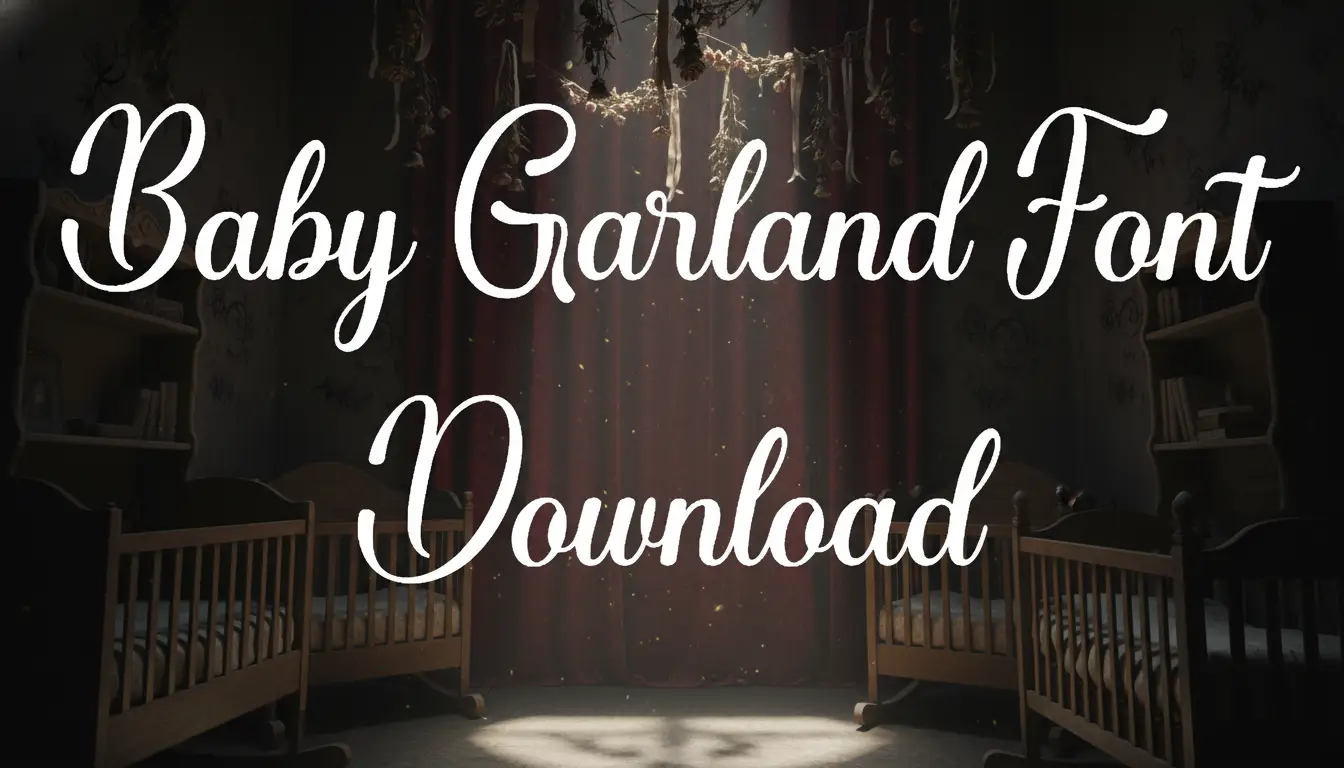
Sidiq Fahmi designed Baby Garland, a beautiful, contemporary script calligraphy font, and released it through Rotterlab Studio. It blends modern elegance with a handwritten feel, using varied baselines and delicate lines to create a fluid, sophisticated layout.
Baby Garland
Baby Garland is a calligraphy font designed by Rotterlab Studio (2020). The letters have the smooth movement of real pen lettering, which is why even a single name looks special in it. It's a free download, and you can try it with your own text in the preview above first.
What You Can Type With Baby Garland
With complete upper and lowercase letters and all ten digits, Baby Garland is ready for real wording, not just a single headline. Everyday marks like &, !, ? and @ are there too. Thanks to its accented letters, it also works for Spanish, French, German, Portuguese and Italian, not just English.
Where Baby Garland Works Best
Designers usually reach for fonts like Baby Garland when they're making wedding invitations, certificates and elegant quotes. Its lowercase letters are small compared to the capitals, so set it a size or two bigger than usual. Script fonts read best in short bursts, so keep it to names, titles and one-line quotes. Skip all caps: script capitals are drawn to start a word, not to fill one.
Who designed Baby Garland font?
Does Baby Garland support accented letters?
Yes. Baby Garland includes the accented letters needed for Spanish, French, German, Portuguese and Italian, so it works for more than just English.